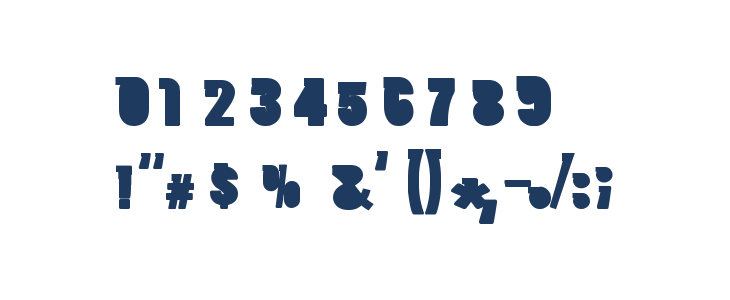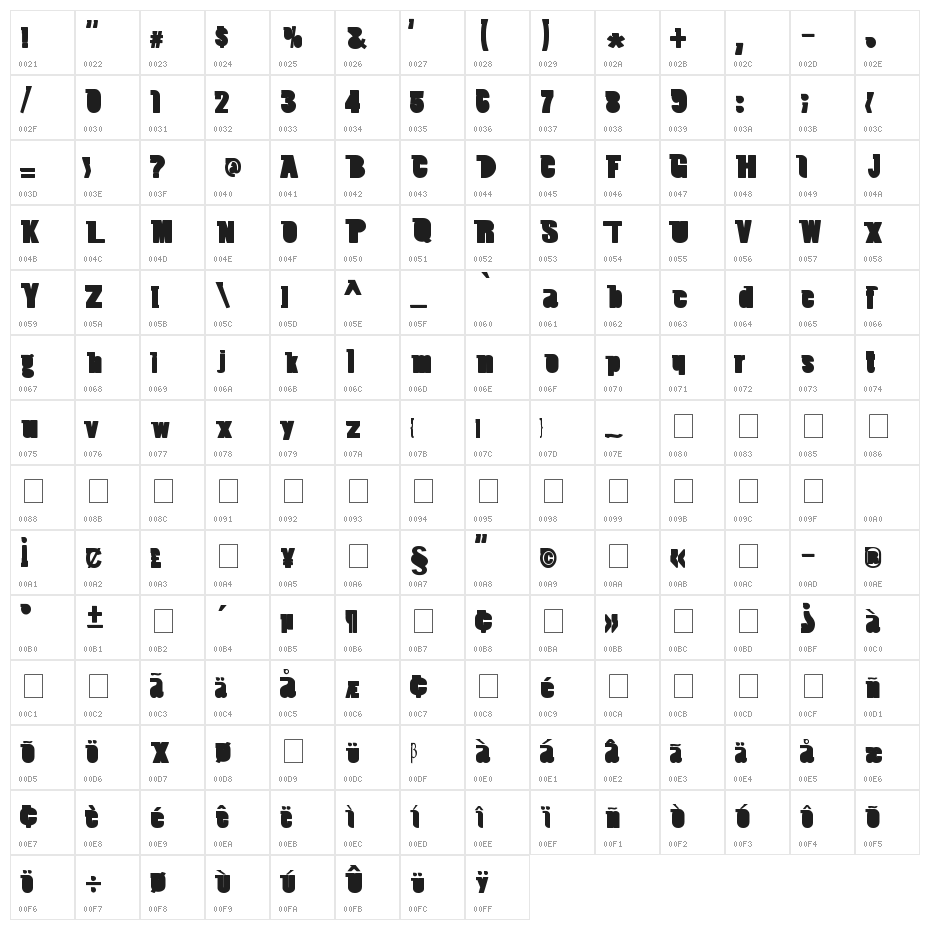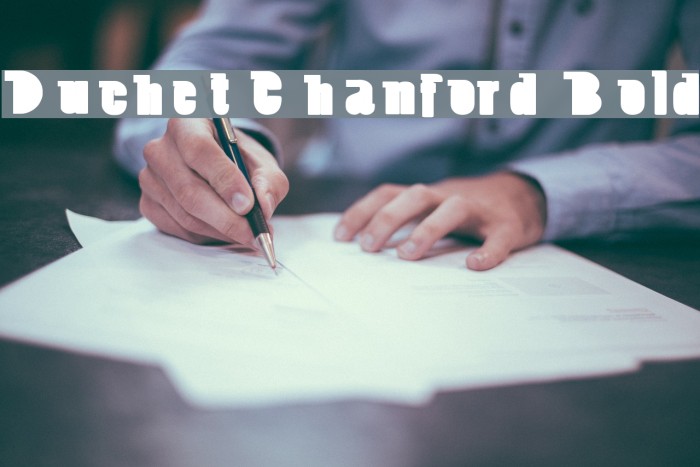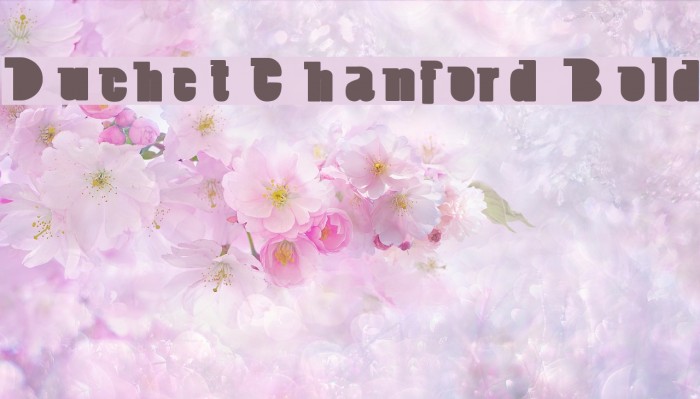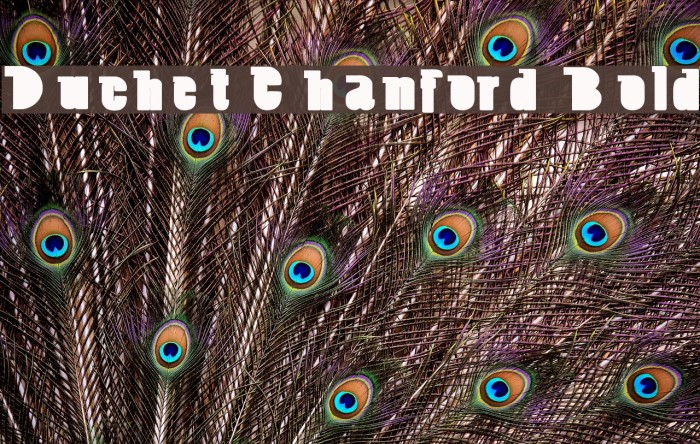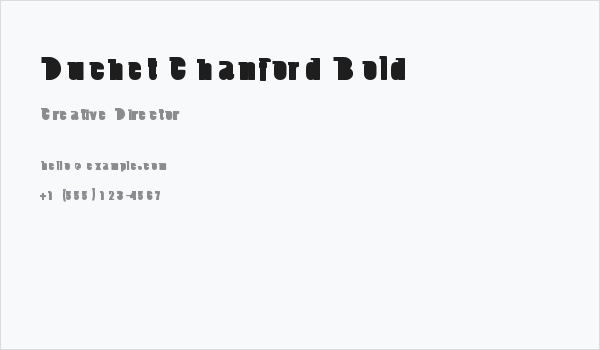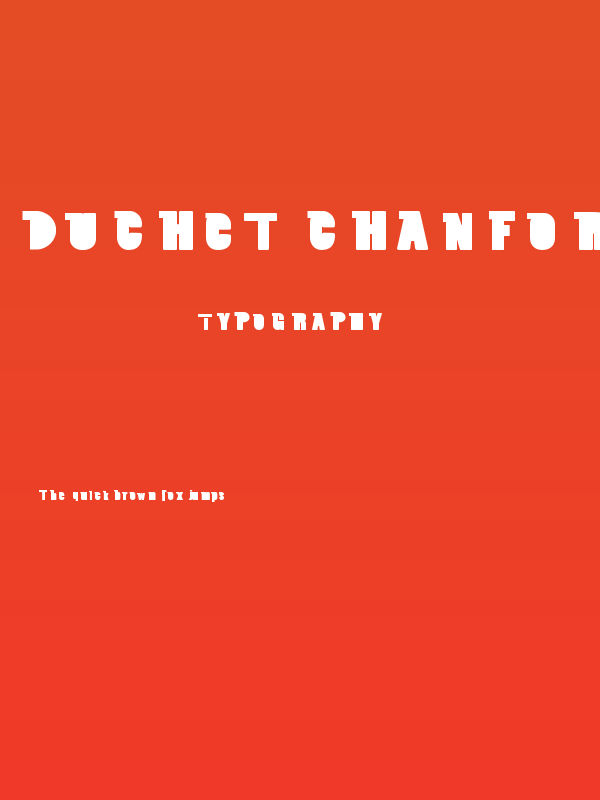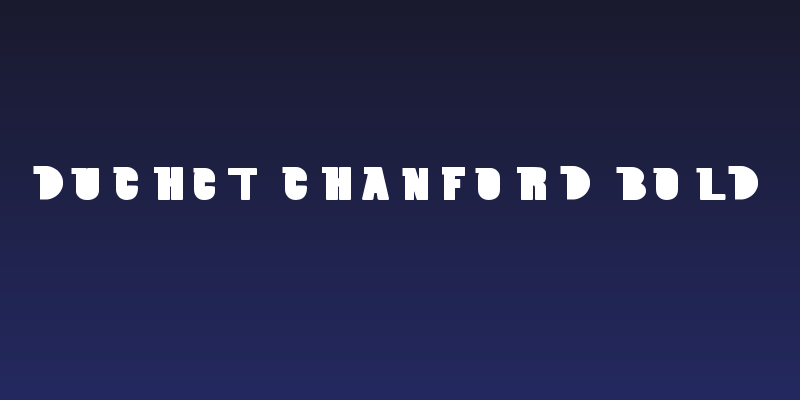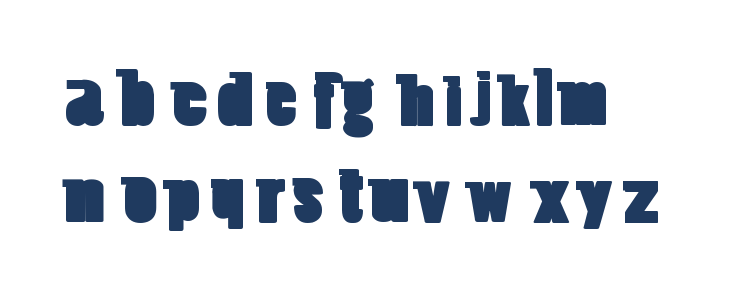
Duchet Chanford Bold Font
Duchet Chanford Bold Description
This bold and impactful font features thick, block-like characters with a strong presence. The uppercase letters are particularly striking, with a uniform height and width that convey a sense of stability and strength. The lowercase letters maintain the boldness, offering a consistent look across both cases. The numerals are equally robust, ensuring clarity and readability. Special characters are designed to match the overall bold aesthetic, making them stand out effectively. This font is ideal for making a statement, with its high contrast and solid form.
| Proposed Projects | Ideal for posters, headlines, branding, and any project requiring a strong visual impact. |